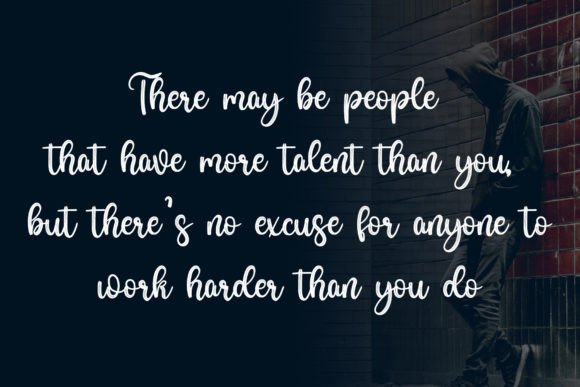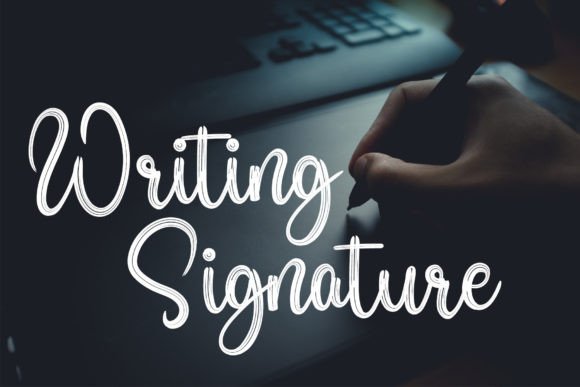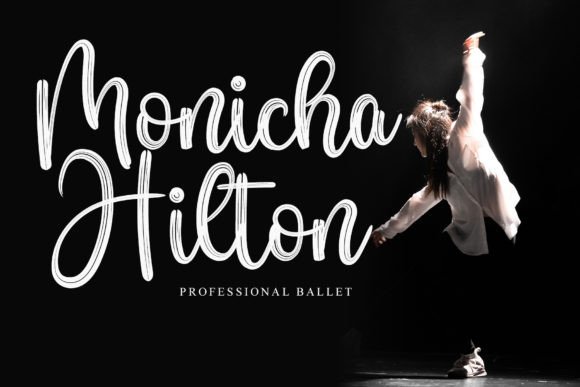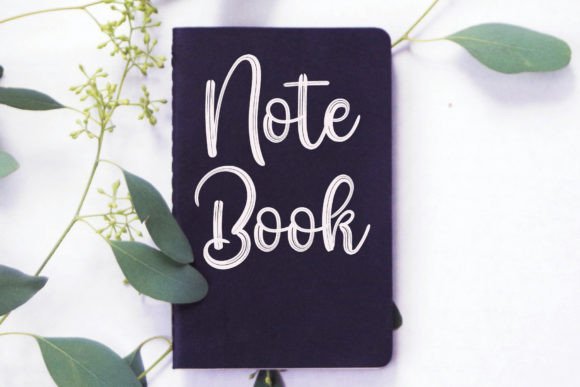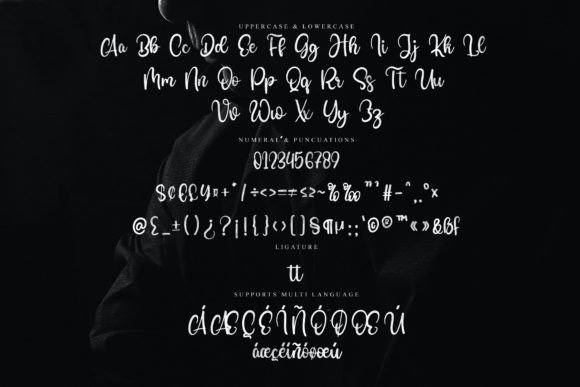
Discover the Elegance of Another Font: Elevate Your Designs with Timeless Style
In the realm of typography, fonts play a pivotal role in conveying messages, evoking emotions, and enhancing the aesthetic appeal of any design project. Among the myriad of fonts available, “Another Font” stands out for its unique blend of classic calligraphy and modern elegance. This article delves into the characteristics, benefits, and creative applications of Another Font, making it an indispensable resource for designers and crafters seeking to infuse their projects with a touch of sophistication.
The Essence of Another Font
Another Font is a stylish handwritten font that embodies a contemporary atmosphere while maintaining impeccable form. Inspired by timeless classic calligraphy, it strikes a perfect balance between traditional charm and modern flair. The creator of Another Font aimed to produce a typeface that is not only beautiful but also versatile, capable of enhancing the beauty of various projects across different mediums.
Key Features of Another Font
- Contemporary yet Classic: Another Font merges contemporary design elements with classic calligraphic techniques, resulting in a unique and stylish appearance.
- Balanced and Varied: The font boasts a balanced design with considerable variation in stroke widths, giving it a dynamic and organic feel.
- Impeccable Form: Paying homage to traditional calligraphy, Another Font features precise and elegant letterforms that convey a sense of refinement.
- Versatility: Its adaptability makes it suitable for a wide range of projects, from digital applications to print materials.
Another Font offers numerous benefits for designers and crafters looking to elevate their projects:
- Enhanced Aesthetic Appeal: The font’s elegant and modern design can significantly enhance the visual appeal of any project.
- Time-Saving: With its comprehensive set of characters and styles, Another Font allows designers to work more efficiently, saving time without compromising on quality.
- Emotional Connection: The classic inspiration behind the font can help create an emotional connection with the audience, making designs more impactful.
- Cross-Platform Compatibility: Another Font can be used across various platforms and applications, ensuring consistency in design.
Creative Applications of Another Font
The versatility of Another Font makes it suitable for a myriad of creative projects:
- Branding and Logos: Create memorable and elegant brand identities with Another Font.
- Invitations and Stationery: Add a touch of class to wedding invitations, greeting cards, and other stationery.
- Digital Media: Enhance blog posts, social media graphics, and website content with its modern yet sophisticated look.
- Packaging: Stand out on store shelves with eye-catching and refined packaging designs.
- Art and Craft Projects: Incorporate elegant typography into handmade crafts, journals, and art pieces.
Another Font is a remarkable addition to the world of typography, offering a perfect blend of classic elegance and modern style. Its versatility, aesthetic appeal, and emotional resonance make it an excellent choice for designers and crafters aiming to elevate their projects. Whether you’re working on branding, digital media, or art and craft projects, Another Font provides the tools to create visually stunning and impactful designs. Discover the potential of Another Font and bring a touch of timeless sophistication to your creative endeavors.